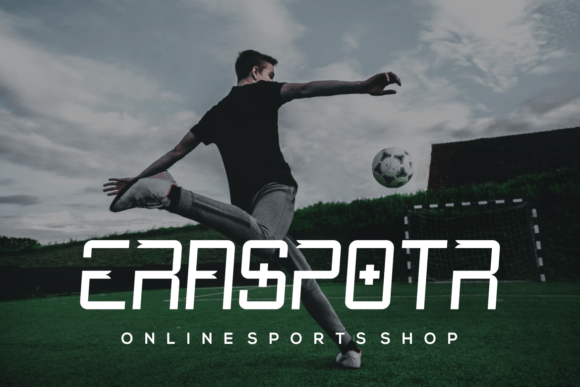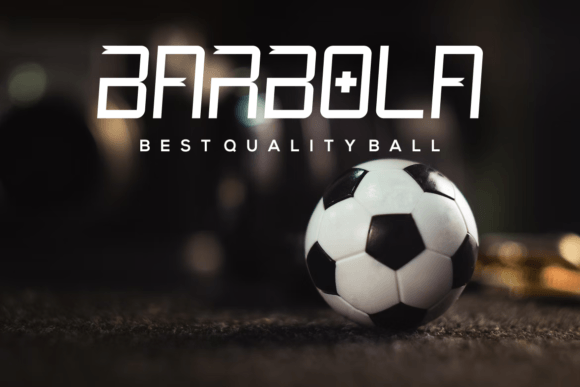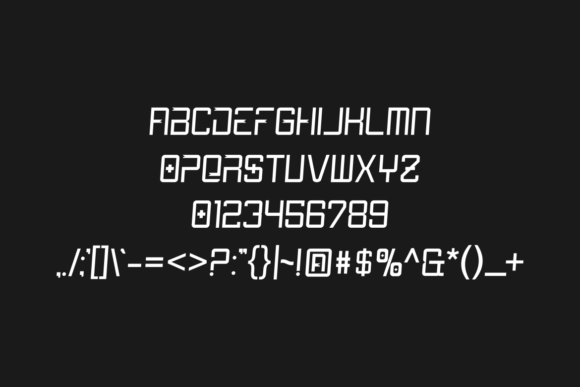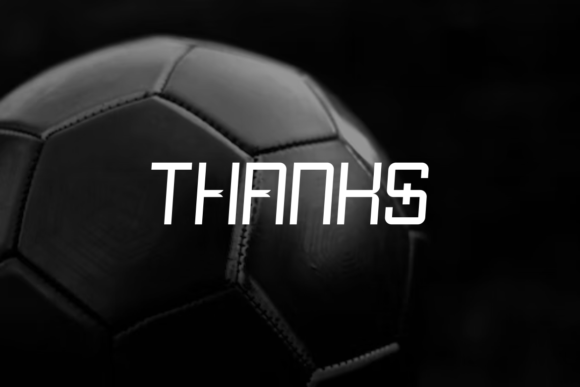
Abedar Font: Elevate Your Designs with a Modern Display Font
In the world of typography, a font can make or break a design. With the right font, you can convey your message, evoke emotions, and create a lasting impression. Abedar Font is a modern display font that has been gaining popularity among designers and crafters. In this article, we’ll dive into the features, benefits, and uses of Abedar Font, and explore how it can elevate your designs.
What is Abedar Font?
Abedar Font is a modern display font designed to make a statement. Its creative and sleek design makes it perfect for a wide range of applications, from branding and logos to t-shirt printing and esports. The font’s unique style and versatility have made it a favorite among designers and crafters.
Key Features of Abedar Font
- Modern Design: Abedar Font boasts a modern and sleek design, making it perfect for contemporary brands and designs.
- Versatility: The font is suitable for a wide range of contexts, from logos and branding to t-shirt printing and esports.
- Creative Expression: Abedar Font’s unique style allows for creative expression and can add a touch of personality to your designs.
- Easy to Read: Despite its modern design, Abedar Font is easy to read, making it perfect for headlines, titles, and short texts.
Benefits of Using Abedar Font
So, why should you choose Abedar Font for your next design project? Here are some benefits of using this modern display font:
- Stand Out: Abedar Font’s unique design helps your brand stand out from the crowd and creates a lasting impression.
- Professional Look: The font’s sleek design gives your designs a professional look, perfect for businesses and brands.
- Flexibility: Abedar Font can be used in a variety of contexts, from digital designs to print materials.
- Easy to Customize: The font is easy to customize, allowing you to tailor it to your brand’s style and personality.
Use Cases for Abedar Font
Abedar Font is a versatile font that can be used in a wide range of design projects. Here are some use cases:
- Logo Design: Abedar Font is perfect for creating unique and memorable logos that make a statement.
- T-Shirt Printing: The font’s bold design makes it perfect for t-shirt printing, adding a touch of personality to your apparel.
- Esports: Abedar Font’s modern design makes it a great fit for esports branding, jerseys, and marketing materials.
- Branding and Advertising: The font’s versatility makes it suitable for a wide range of branding and advertising applications.
Tips for Using Abedar Font
To get the most out of Abedar Font, here are some tips:
- Pair it with a Simple Font: Pair Abedar Font with a simple font to create contrast and visual interest.
- Use it for Headlines: Abedar Font is perfect for headlines and titles, making it a great choice for large text.
- Experiment with Colors: The font’s bold design makes it perfect for experimenting with different colors and gradients.
- Keep it Simple: Don’t over-accessorize – keep your design simple and let Abedar Font shine.
Abedar Font is a modern display font that can elevate your designs and take your branding to the next level. Its versatility, creative expression, and ease of use make it a favorite among designers and crafters. Whether you’re creating a logo, t-shirt, or esports branding, Abedar Font is a great choice. So, why not give it a try and see how it can transform your designs?